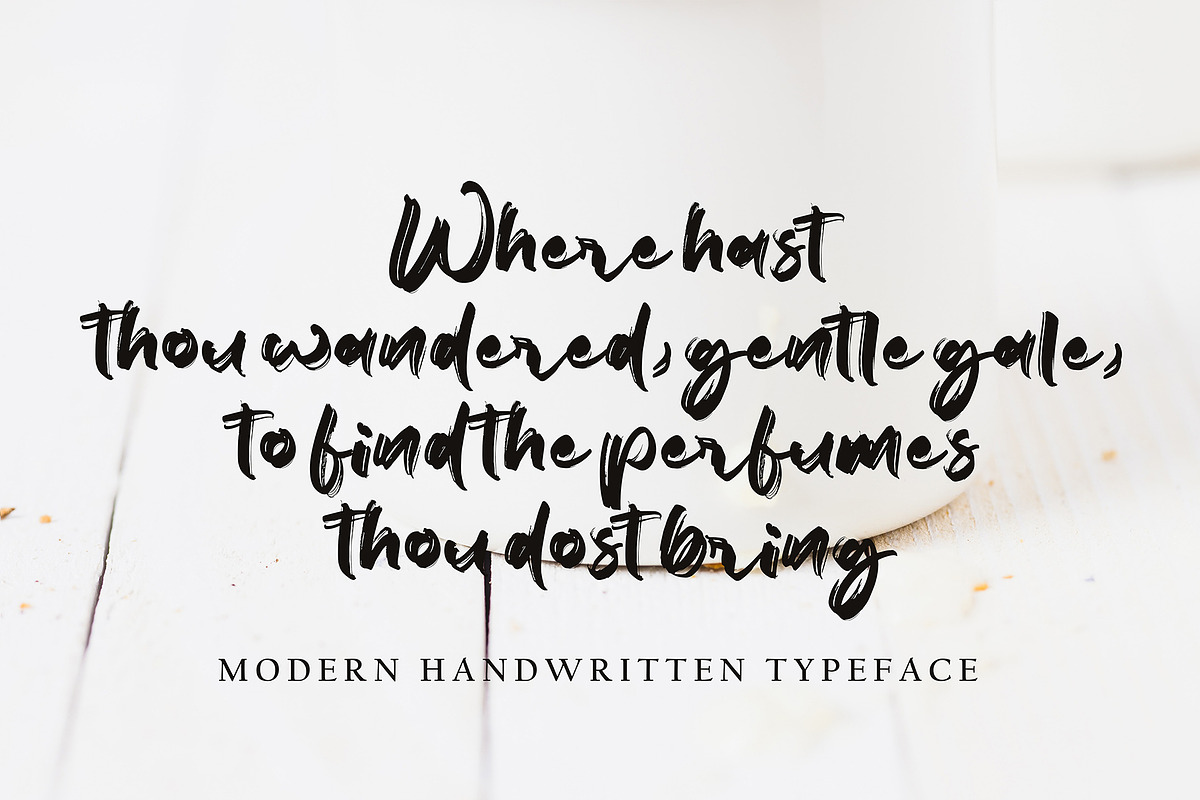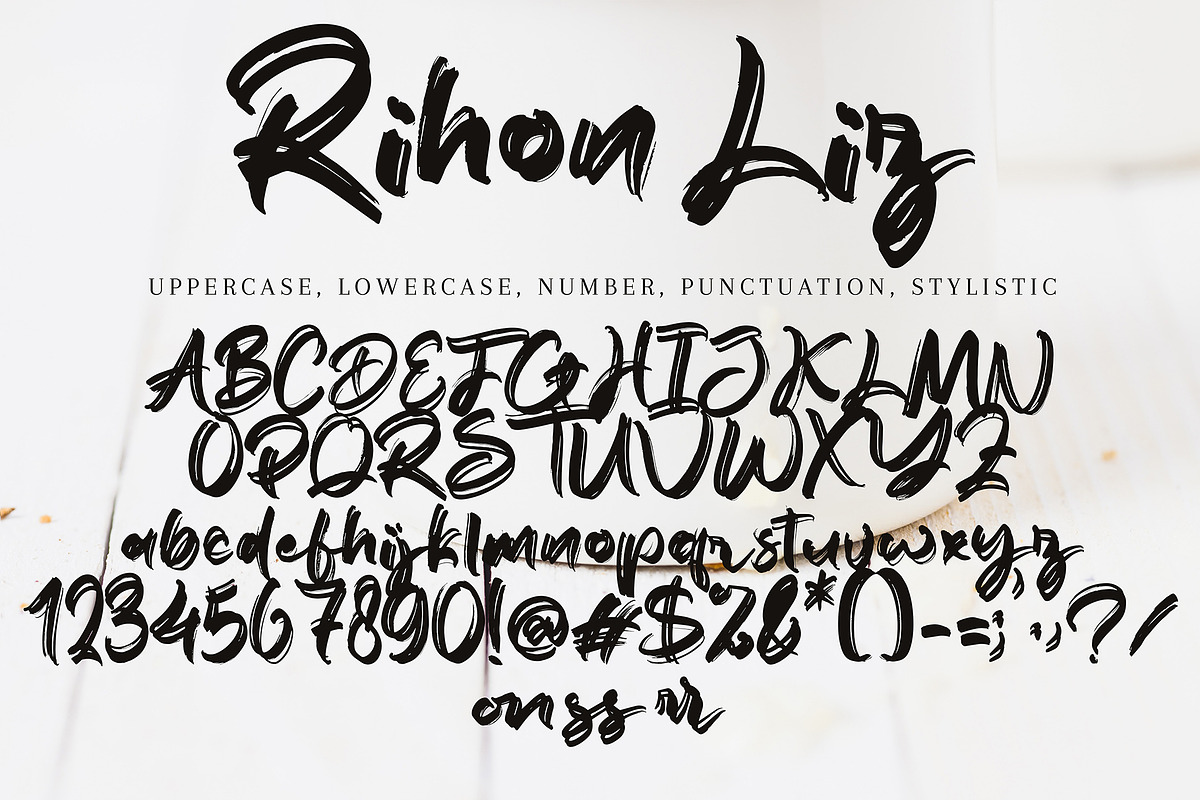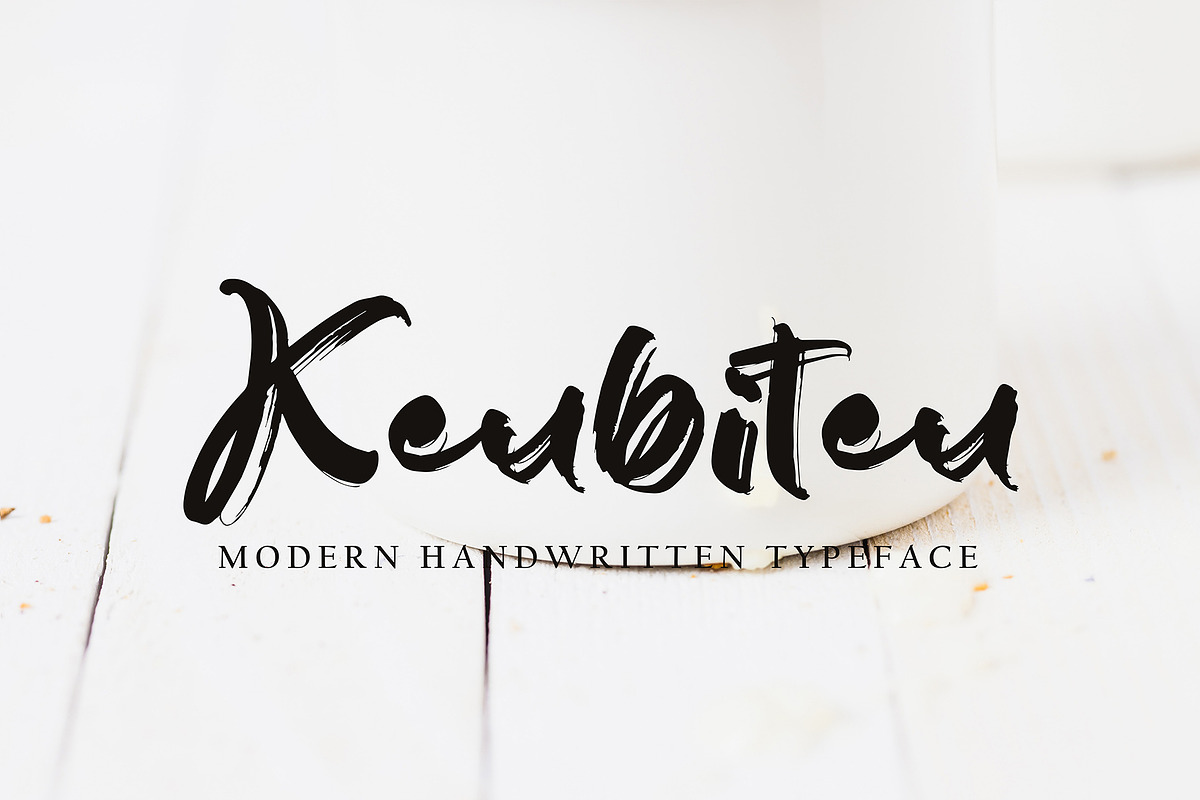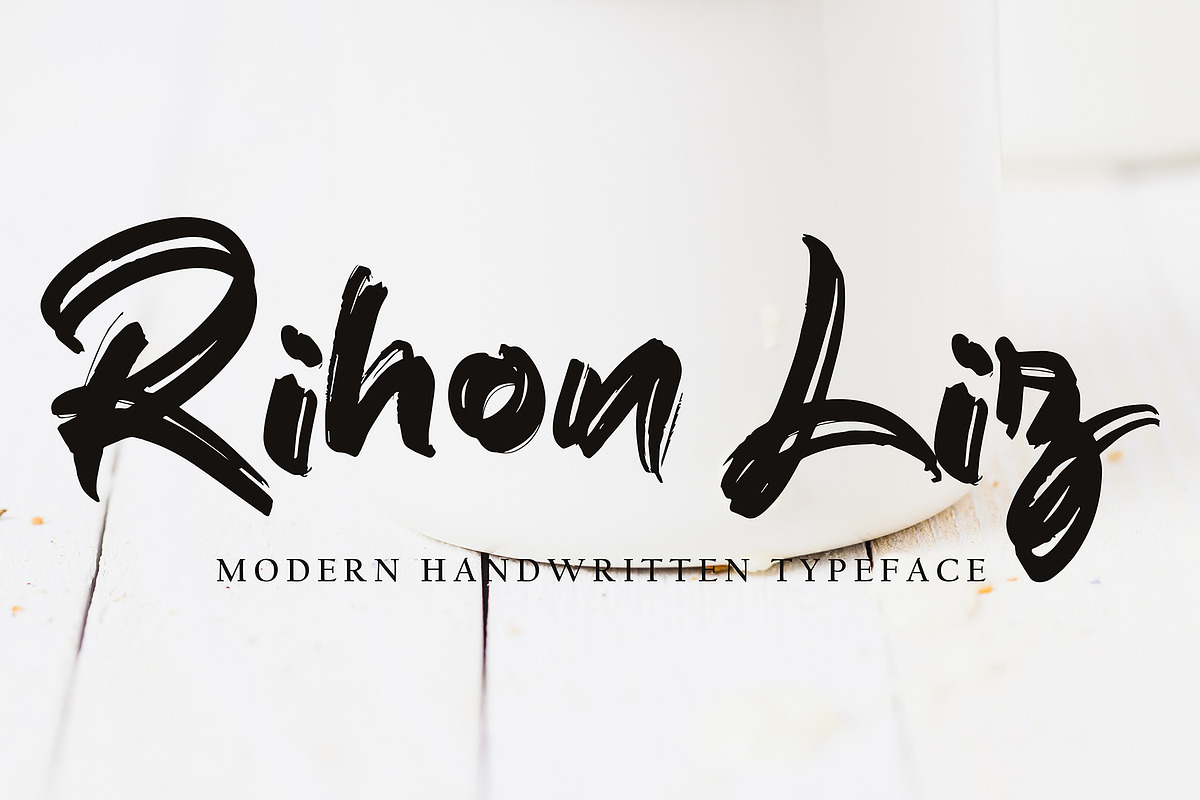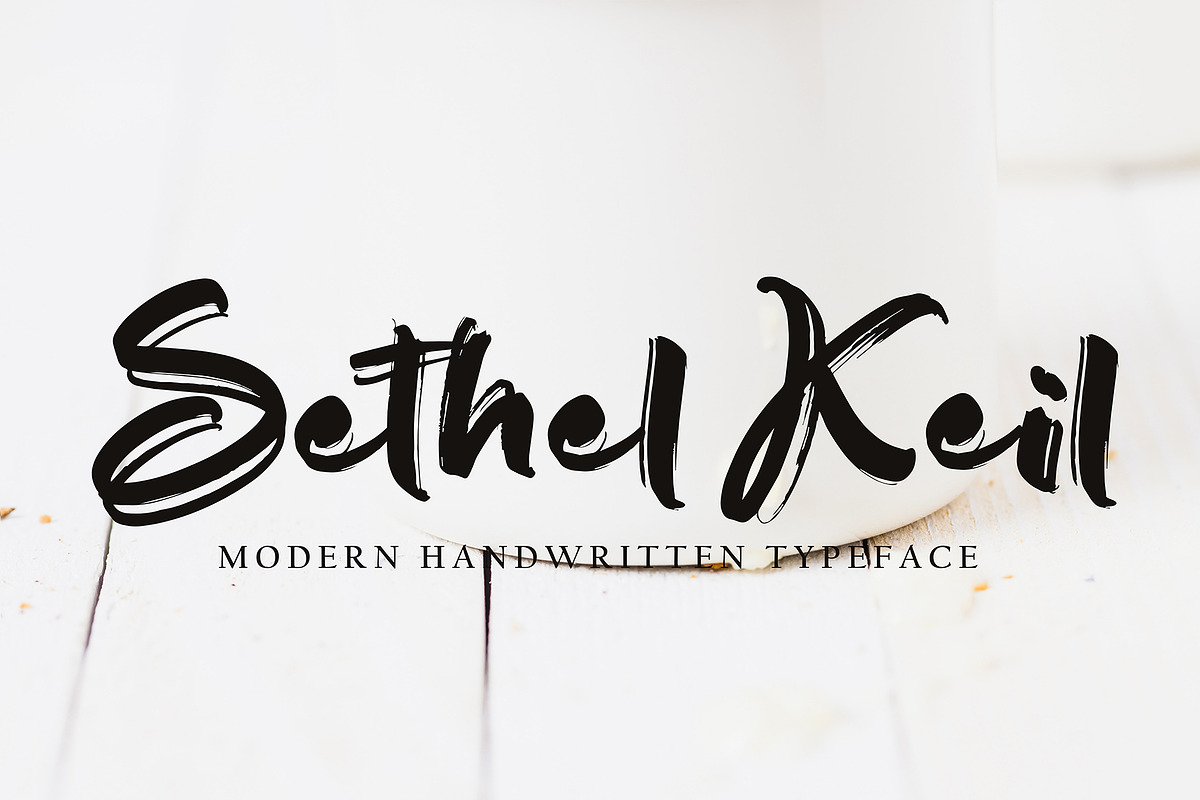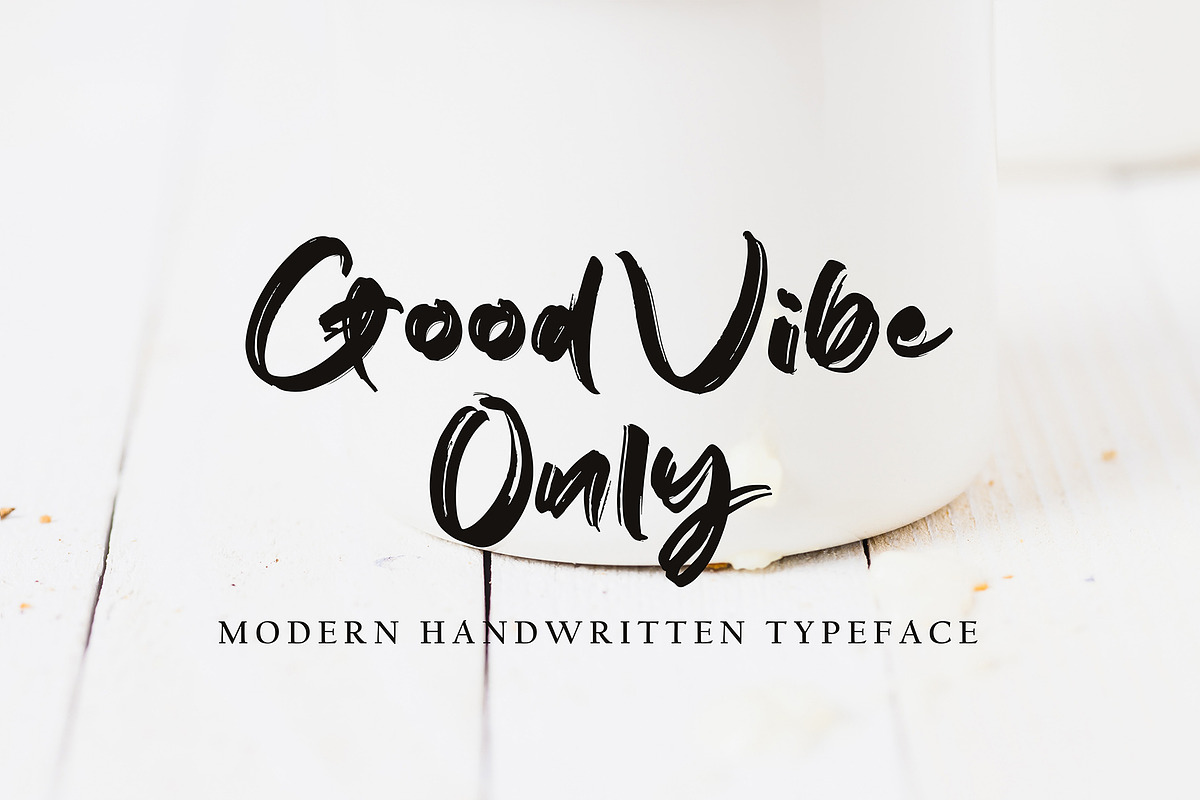
Rihon Liz
Rihon Liz with new style, this font will perfect for many different project ex: quotes, logo, blog header, poster, banding, letter, invitation, stationery, etc...